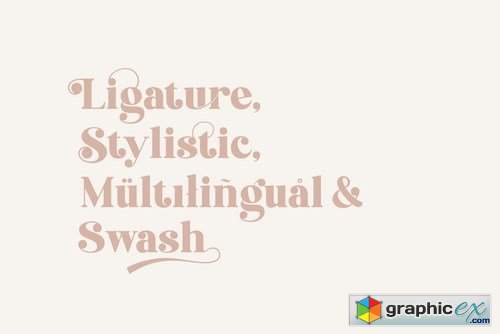
Brand Display Font
A ‘Brand’ for your brand. Brand is bold and chic, with contrast and elegant feel. It is a display font, a playful one. So much option to ignite your project, start from stylistic, swash, and a bunch of ligature.